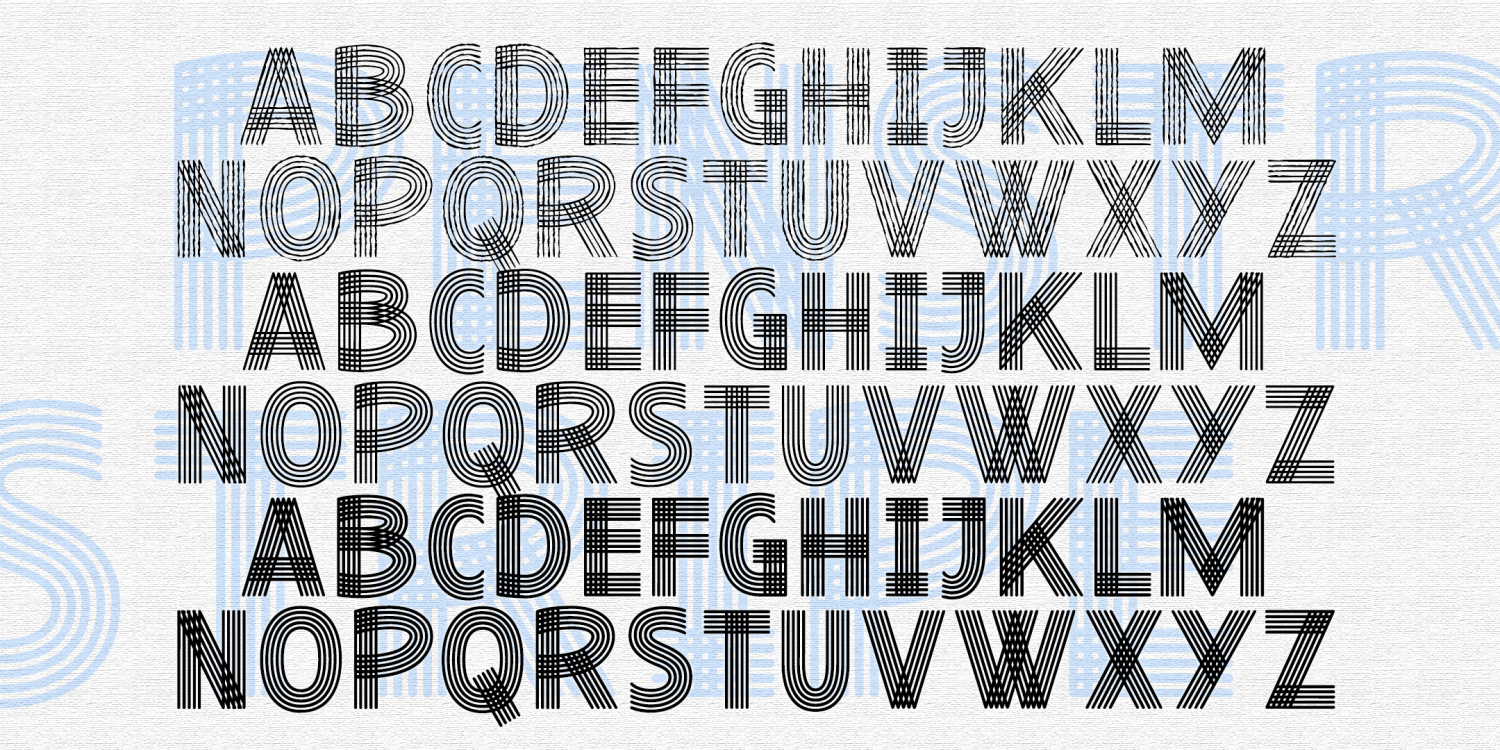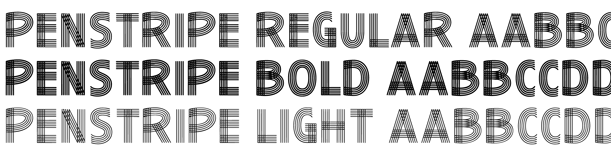
Penstripe
PENSTRIPE is a font set that calls attention to Design, inspired by vintage advertising. Each character is composed of 5 parallel lines, suggesting a sketch, an armature, or a musical staff. Looks great layered in contrasting colors. In three weights.